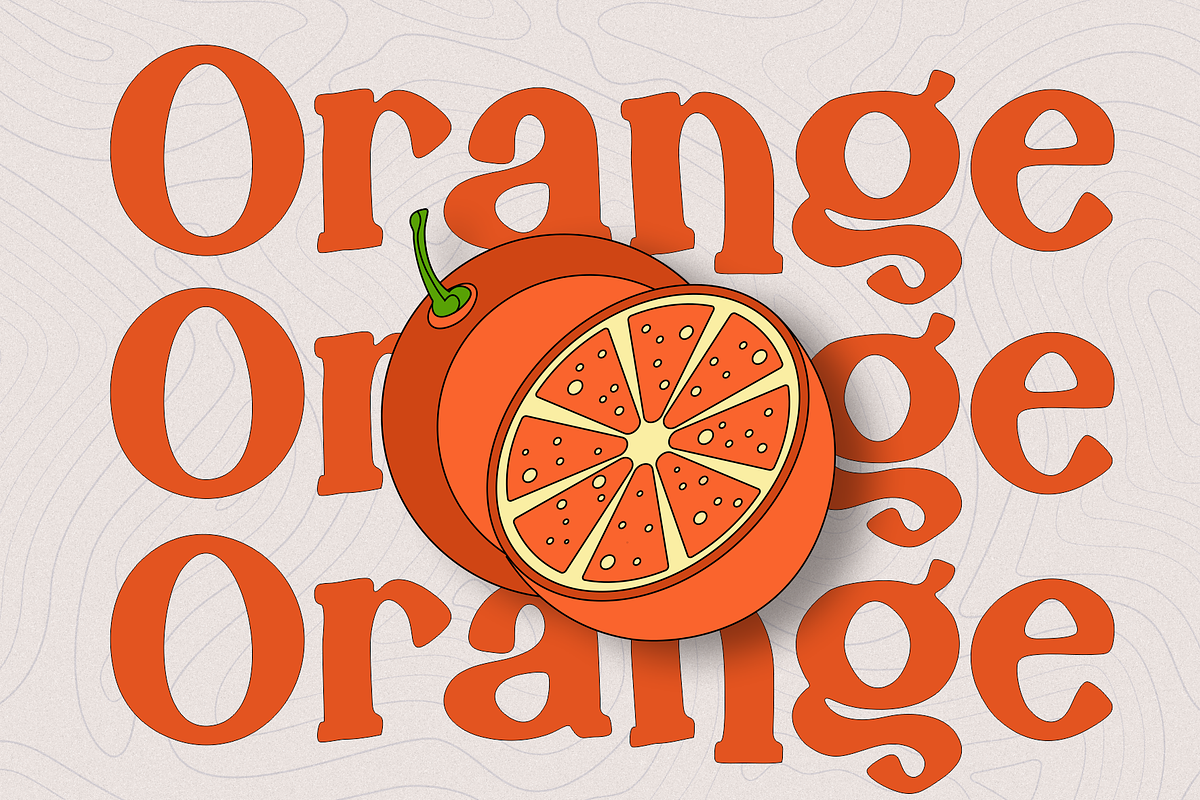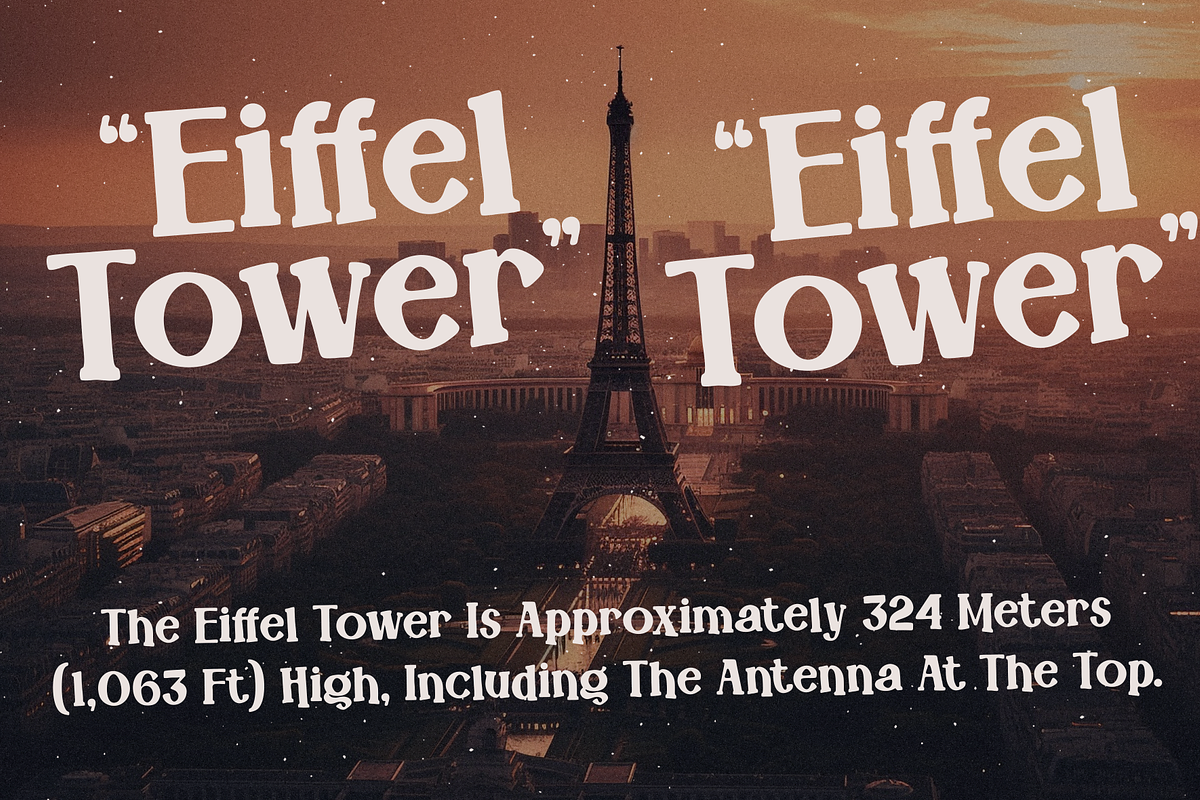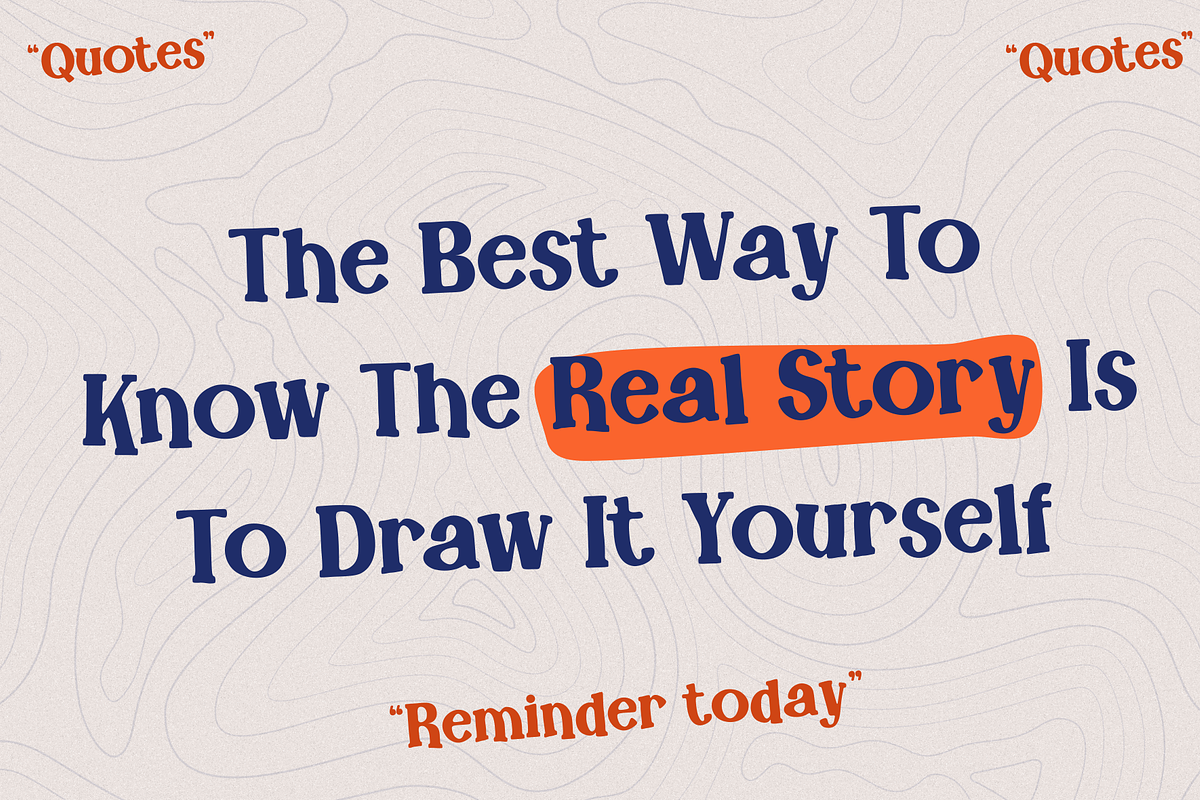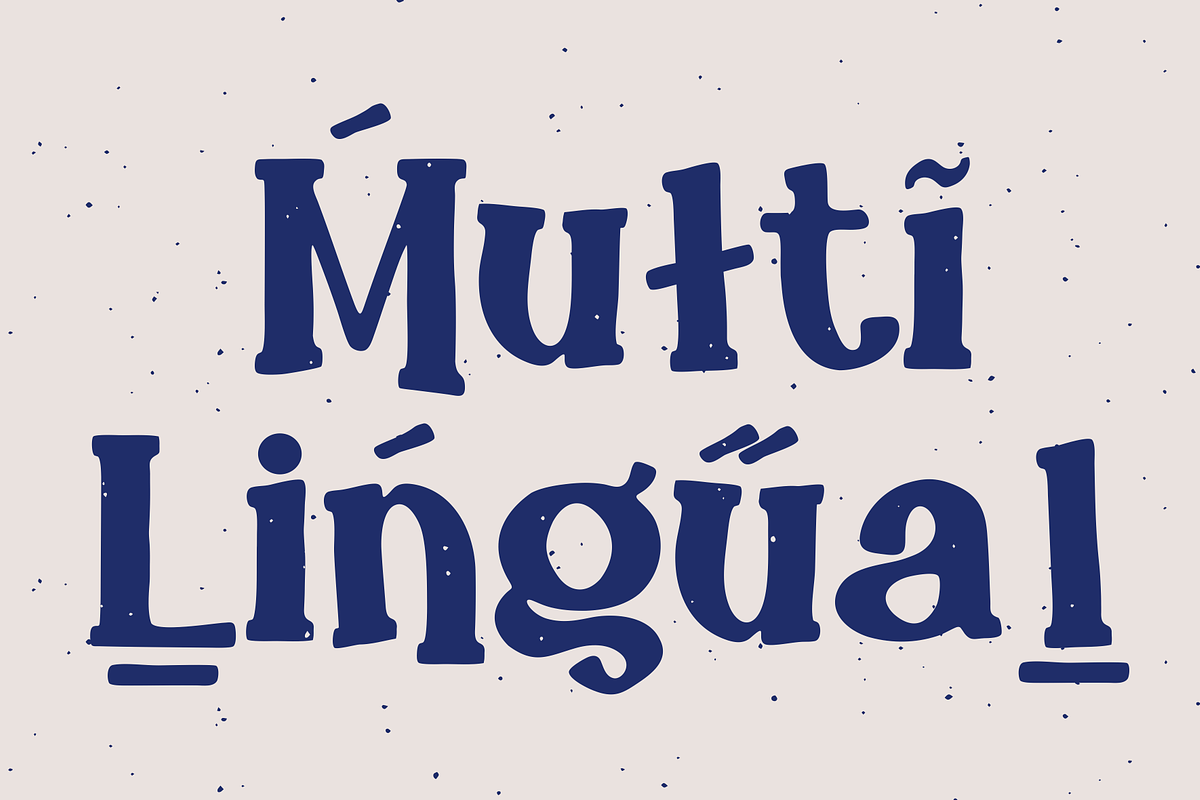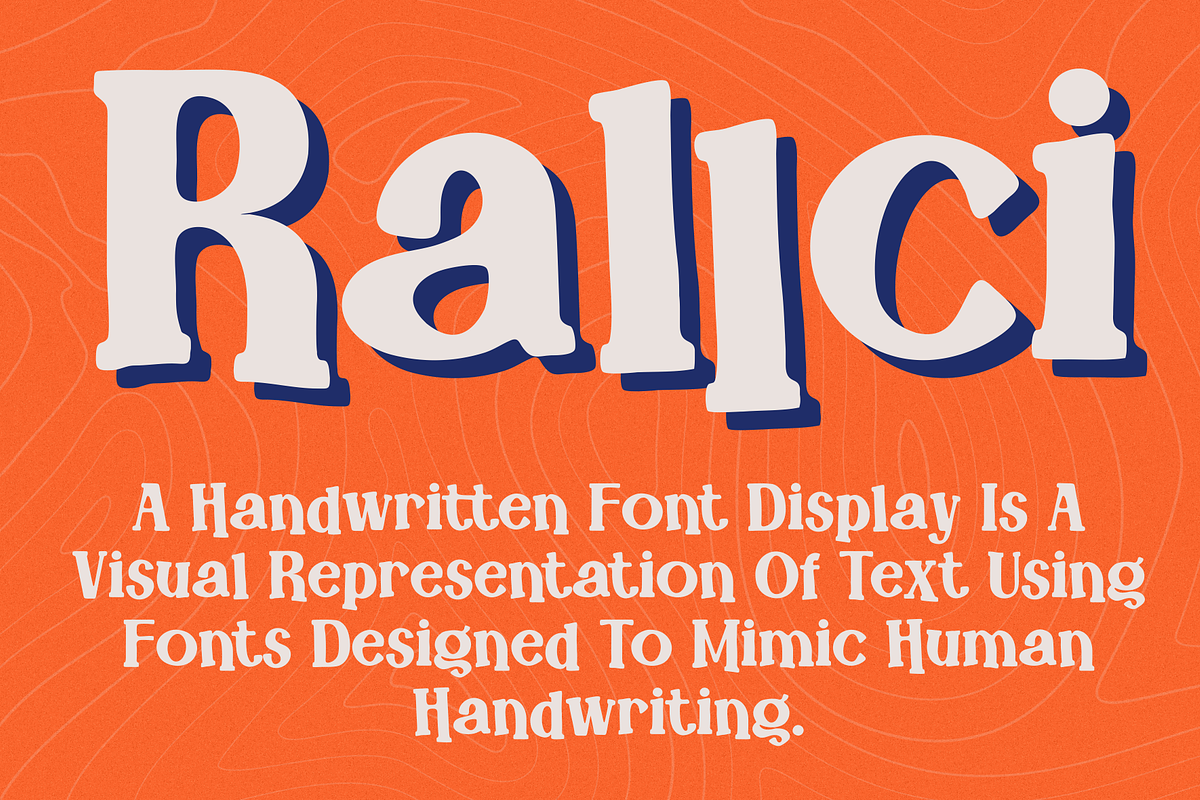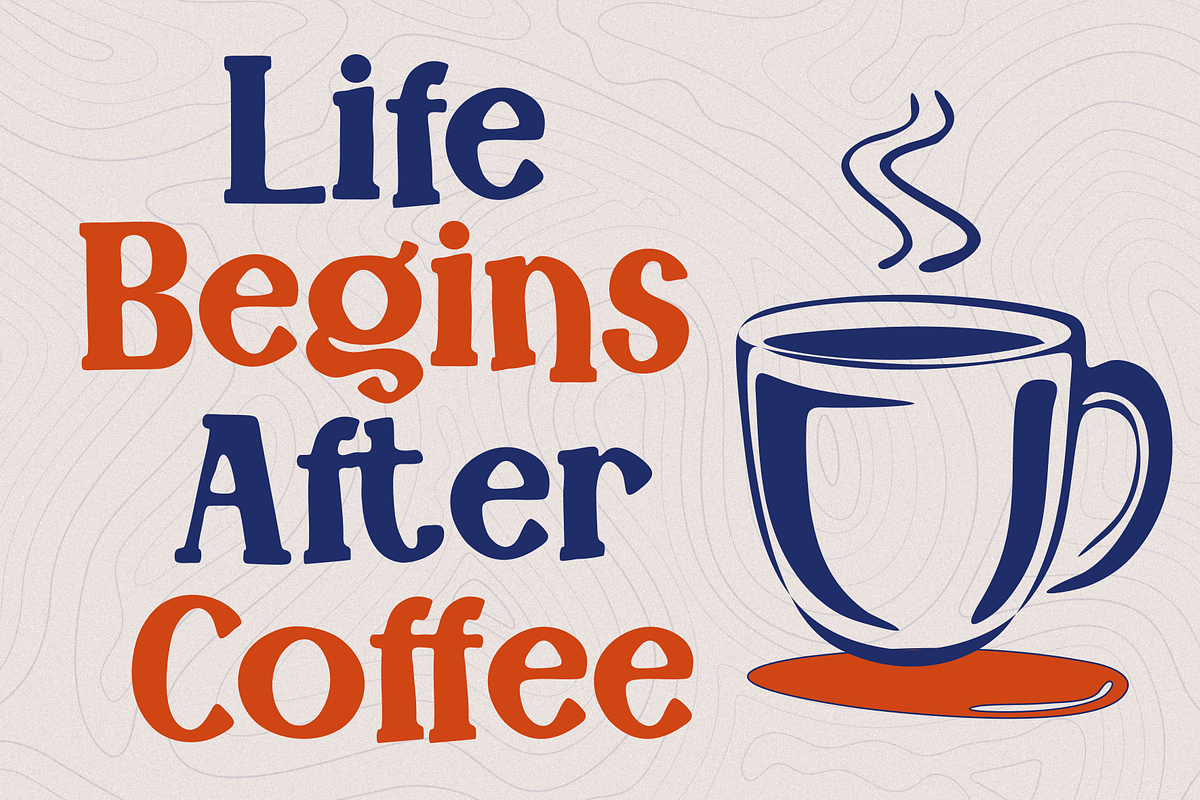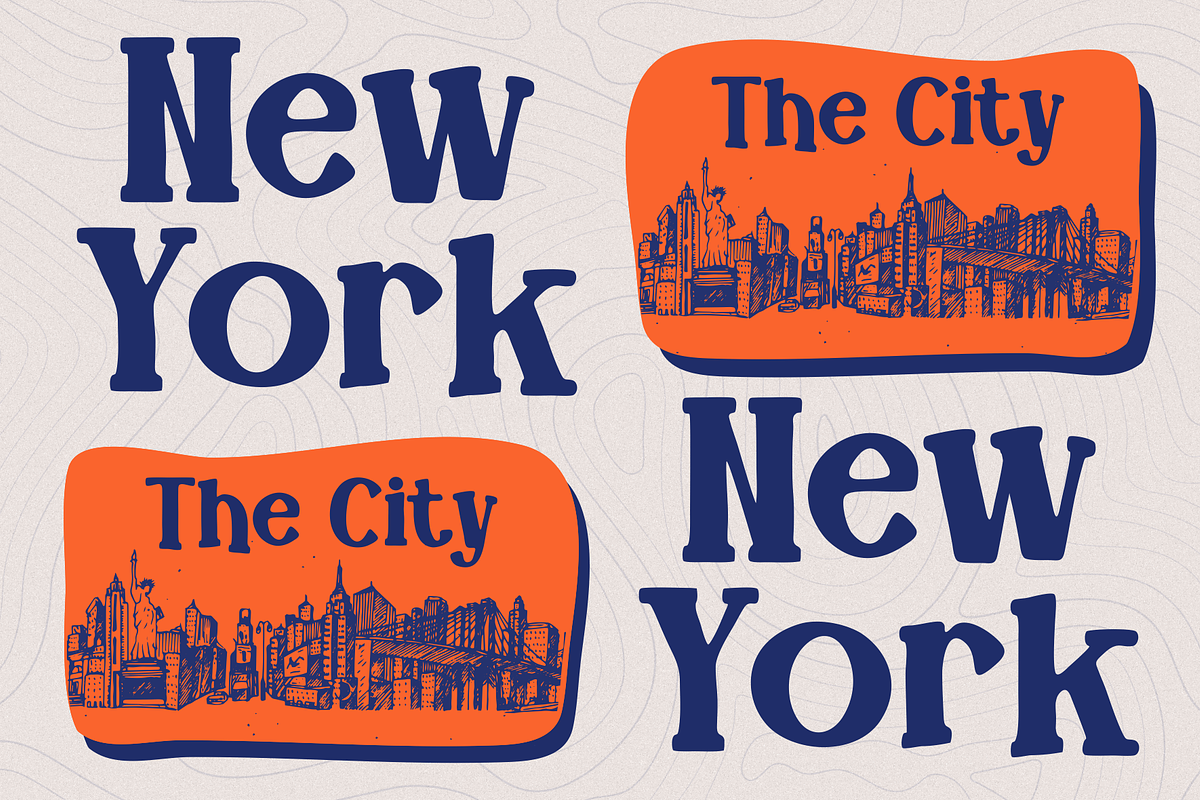
Rallci - Handwritten Display Font
Rallci - is a very flexible choice and can be used in a variety of design contexts. Its ability to provide a clean, professional, contemporary look and its simplicity and visual appeal make this font good for use in the world of graphic design and modern typography.
Why Rallci - Handwritten Display Font is worth a look
Rallci - Handwritten Display Font by MaikoHatta fits naturally into Branding, posters, packaging, typography.